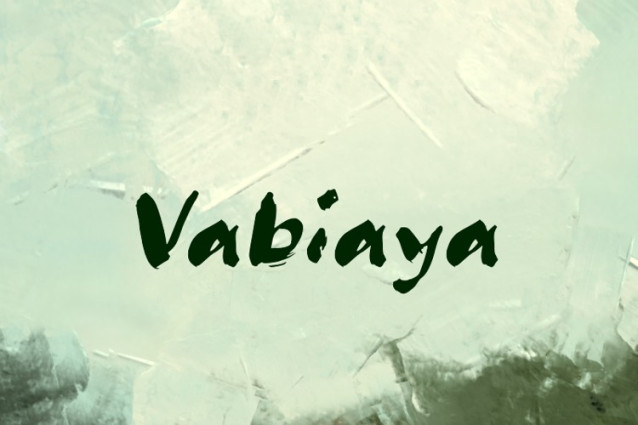
Vabiaya Font
Vabiaya Font is the perfect display brush font for comic book style applications. Bold and unique, this handcrafted font will help you create stunning designs with authentic style.